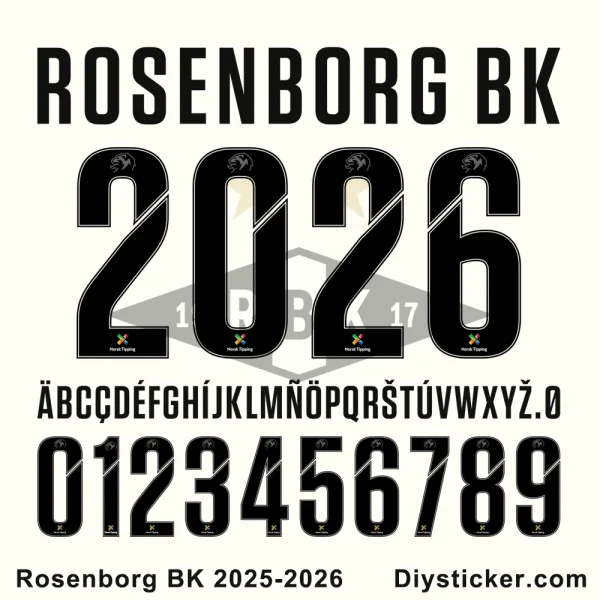
Rosenborg BK 2025-26 Font Download
Own the Rosenborg BK 2025-26 Typography
Are you a fan of the Norwegian giants or a sports apparel designer? Our Rosenborg BK 2025-26 Font is meticulously crafted to match the aesthetic of the new season’s kits. Whether you are re-creating a Rosenborg BK jersey (External Link to Official Site) or designing social media graphics, this font pack provides professional-grade results.